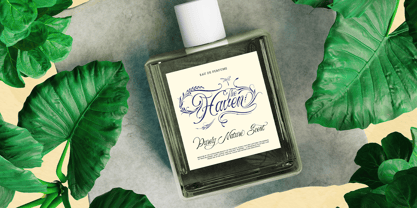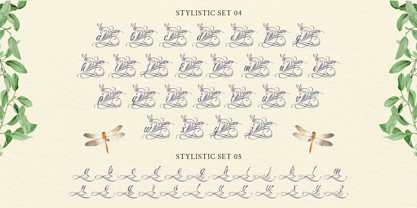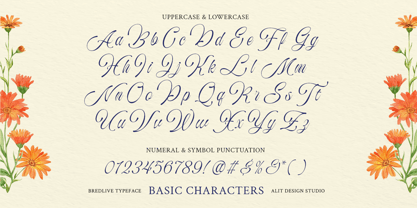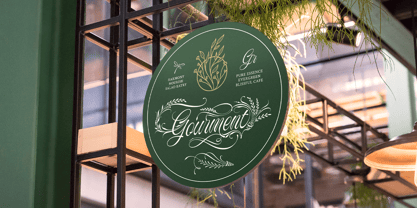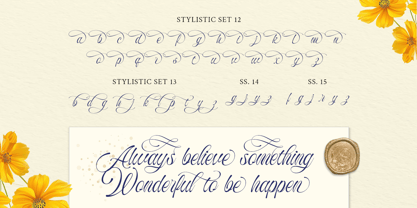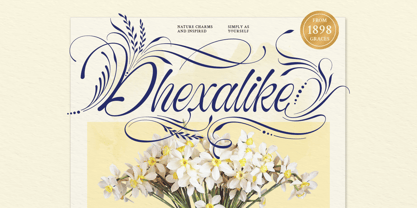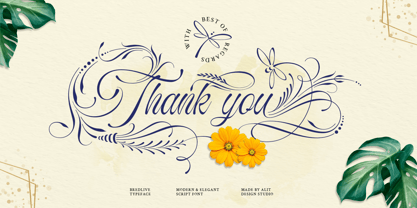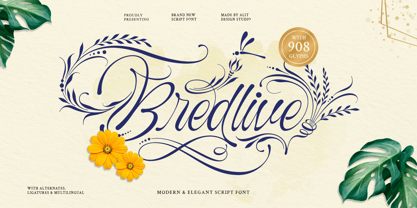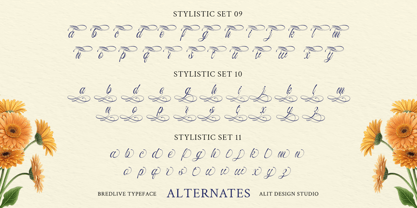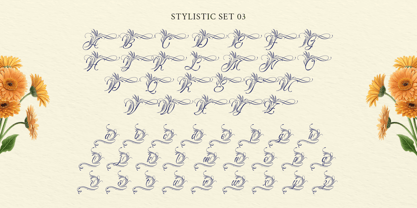
Bredlive
Bredlive Typeface: Where Elegant Script Flourishes with Abstract Natural Grace
Introducing Bredlive Typeface, a brand new script font that embodies modern elegance with a dynamically brushed, expressive touch. Inspired by the abstract beauty of nature and the flowing movements of fine calligraphy, Bredlive is meticulously crafted to infuse your designs with an organic sense of luxury and artistic flair.
Each stroke within Bredlive seems to possess a life of its own, gracefully dancing across the page. Delicately embellished with botanical-inspired flourishes reminiscent of delicate branches, leaves, and tendrils, this typeface creates a captivating visual harmony between timeless sophistication and freely expressed artistry. Its distinctly brushy character lends a personal and inviting warmth, akin to the hand-lettering of a skilled artisan.
Discover the Unique Allure of Bredlive:
• Dynamic and Expressive Flow: The fluid letterforms, featuring a subtly dancing baseline, impart a beautiful rhythm to your text, ensuring it captures attention with effortless charm.
• Abstract Natural Inspiration: Enriched with a plethora of stylistic alternates and swashes adorned with organic elements, Bredlive empowers you to compose words that appear to grow and blossom with natural grace.
• Extensive Glyph Library: Boasting an impressive 908 glyphs, Bredlive offers unparalleled design flexibility. Explore a rich variety of stylistic sets, ligatures, and ornamental additions to craft truly unique and personalized typography.
• Versatile Elegance: Perfectly suited for a diverse range of design projects that demand an exclusive and artistic touch.
Ideally Suited For:
• High-end product branding and boutique fashion labels
• Unforgettable logo designs and elegant monograms
• Captivating headlines for magazines, books, and online media
• Exquisite wedding invitations and special occasion stationery
• Premium product packaging that exudes sophistication
• Inspiring quotes and social media visuals with a distinctive flair
With Bredlive Typeface, you’re not just writing words; you’re painting emotions. Introduce a touch of luxurious nature, captivating dynamism, and enduring elegance into every facet of your creative endeavors.